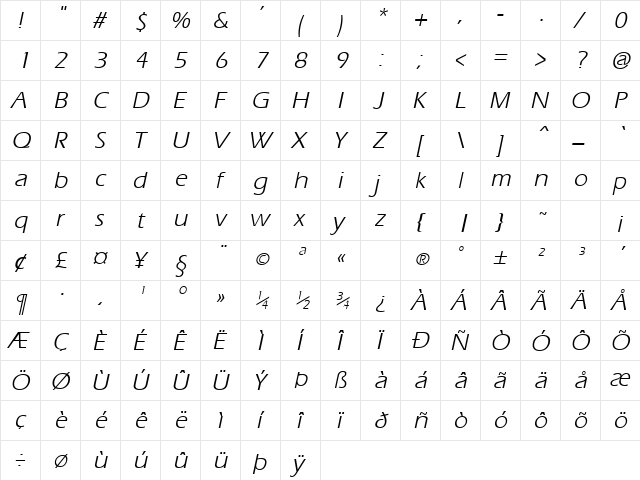
GE Ergonomic Italic
Design Context for GE Ergonomic Typeface
GE Ergonomic offers clean, dependable letterforms without strong stylistic allegiance, making it a practical choice for designers who need flexibility. Its italic angle brings a sense of urgency and motion to the letterforms.
Pro Tip: Use GE Ergonomic for emphasis, pull quotes, and subheadings where its slanted energy can add rhythm to the layout.